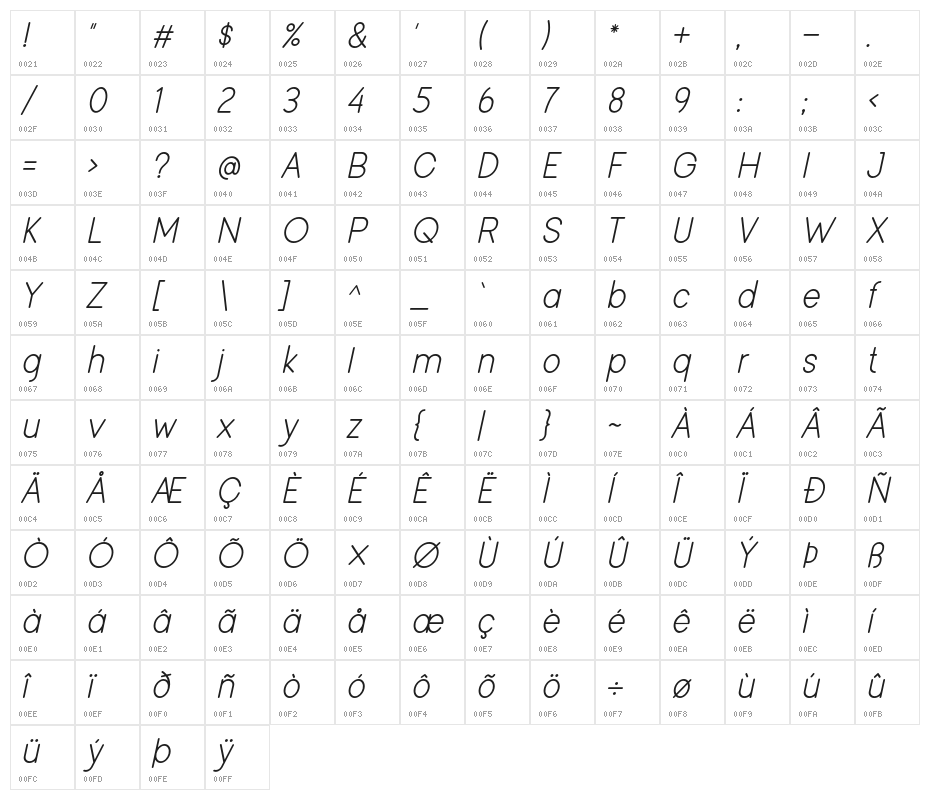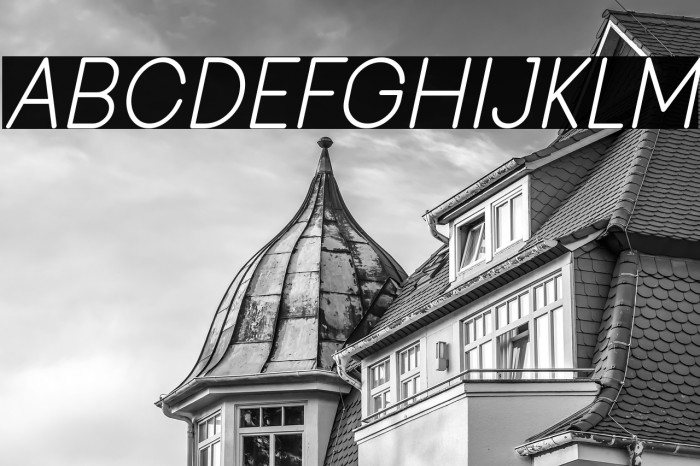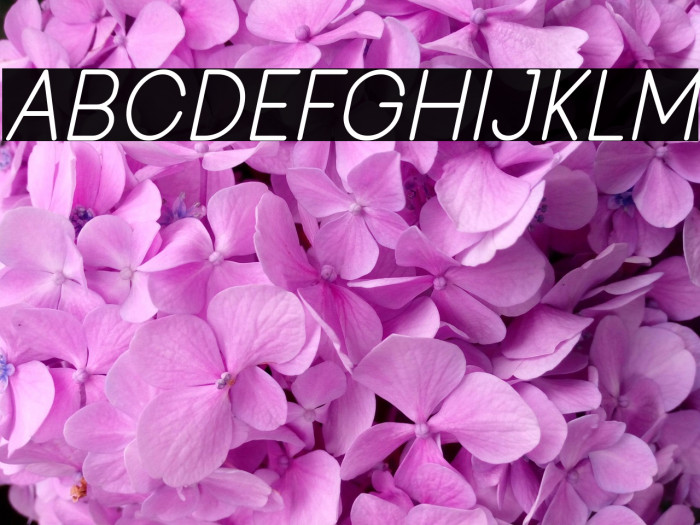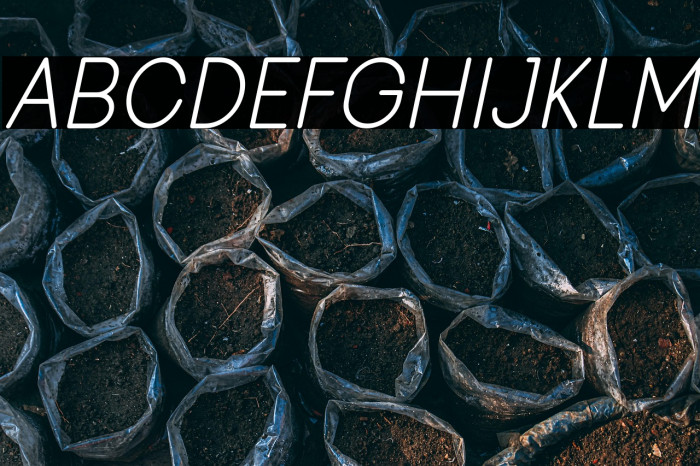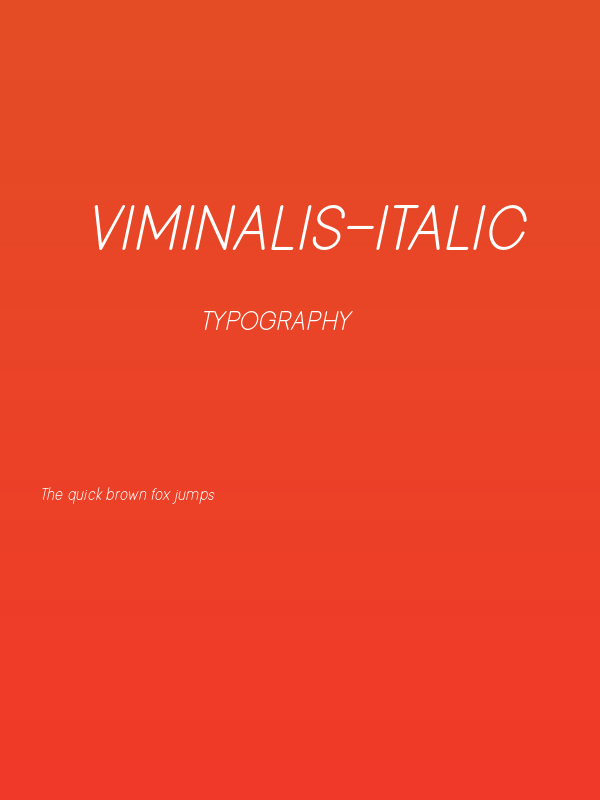
Viminalis-Italic Font
Viminalis-Italic Description
This font features a sleek and modern design with a subtle italic slant, giving it a dynamic and elegant appearance. The characters are crafted with a consistent stroke width, contributing to a clean and uniform look. The rounded edges and smooth curves provide a sense of fluidity and sophistication. The font maintains a balanced proportion between the height and width of the characters, ensuring readability and aesthetic appeal. Its minimalist style makes it versatile for various applications, from digital interfaces to print media.
| Proposed Projects | Ideal for branding, editorial design, digital interfaces, and modern print layouts. |